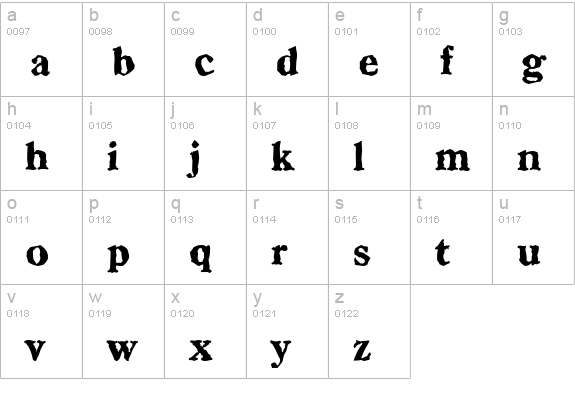
CasadRandom-Heavy-Regular Font Details
CasadRandom-Heavy-Regular is a heavy, high-impact variant in the CasadRandom typeface family \xE2\x80\x94 well suited to high-impact headlines, posters, and display advertising.
CasadRandom-Heavy-Regular is a stylish and attention-grabbing font that brings a modern and unique touch to any design project. With its bold and heavy appearance, this font is perfect for making a statement and standing out. The irregular and random elements in the design add a touch of creativity and playfulness to the overall look. What's even better is that CasadRandom-Heavy-Regular is available for free download at FontsMarket.com. This means you can easily access this eye-catching font and use it in your personal or commercial projects without any cost. Don't miss out on the opportunity to enhance your designs with this striking and versatile typeface. Download CasadRandom-Heavy-Regular today and let your creativity shine!